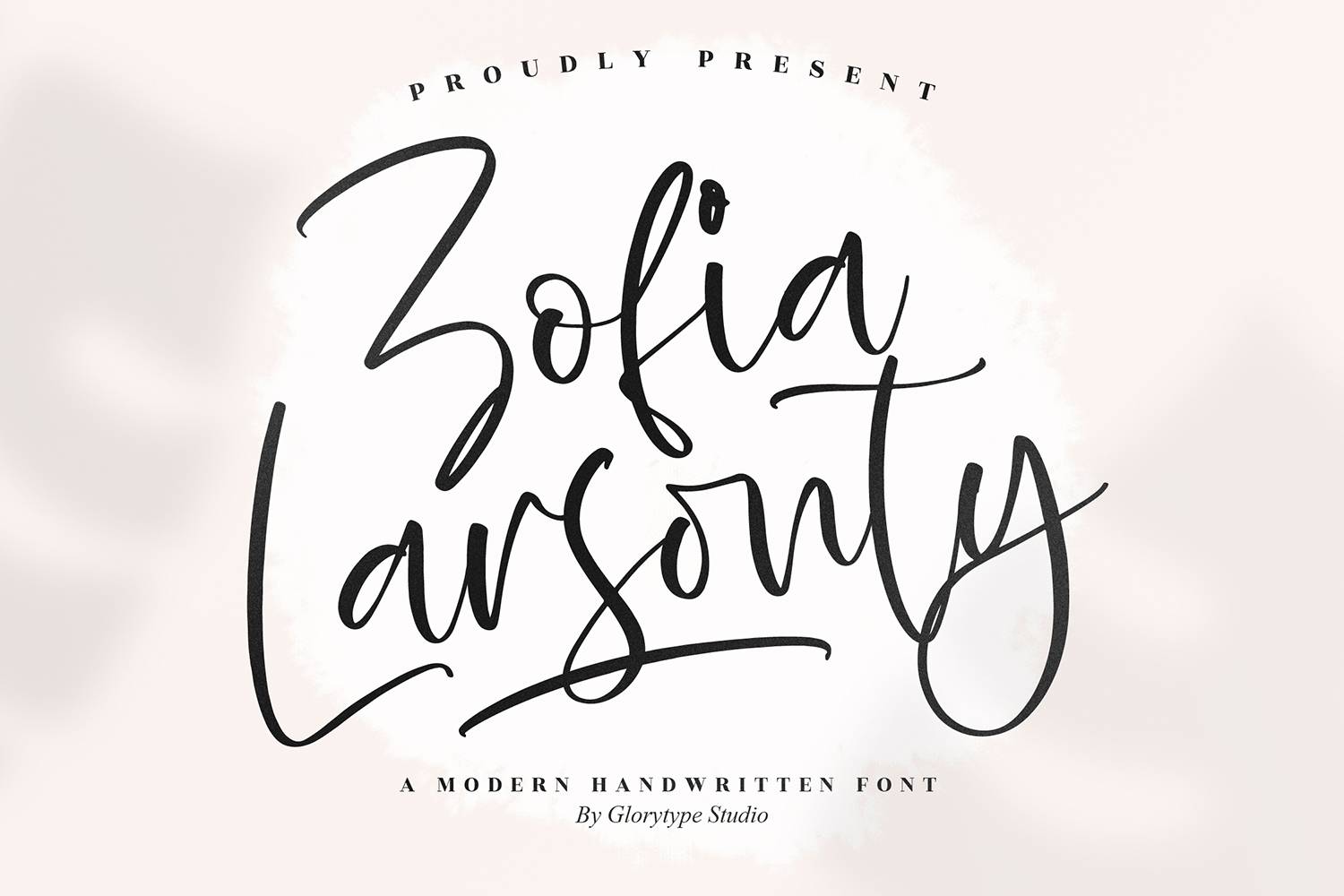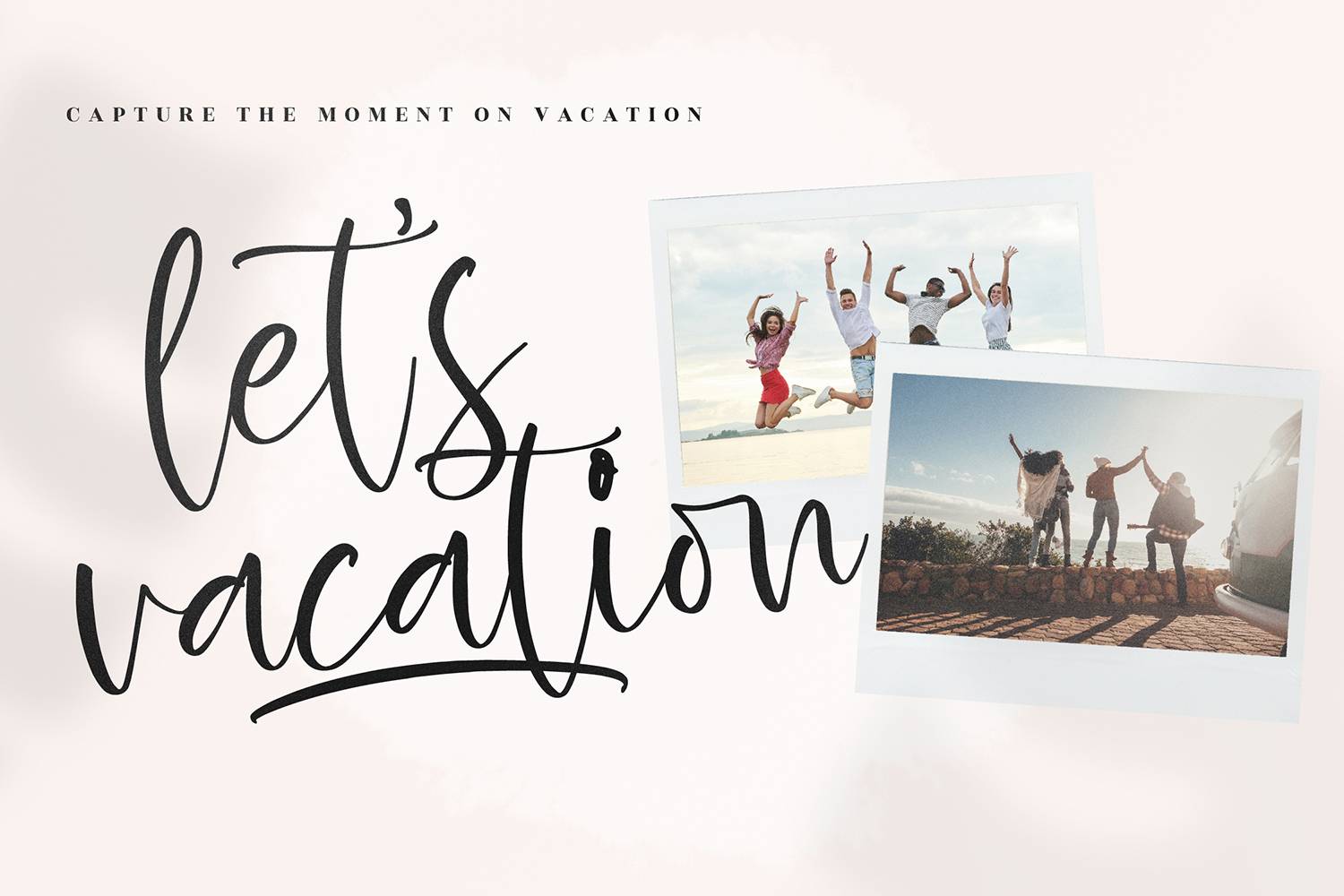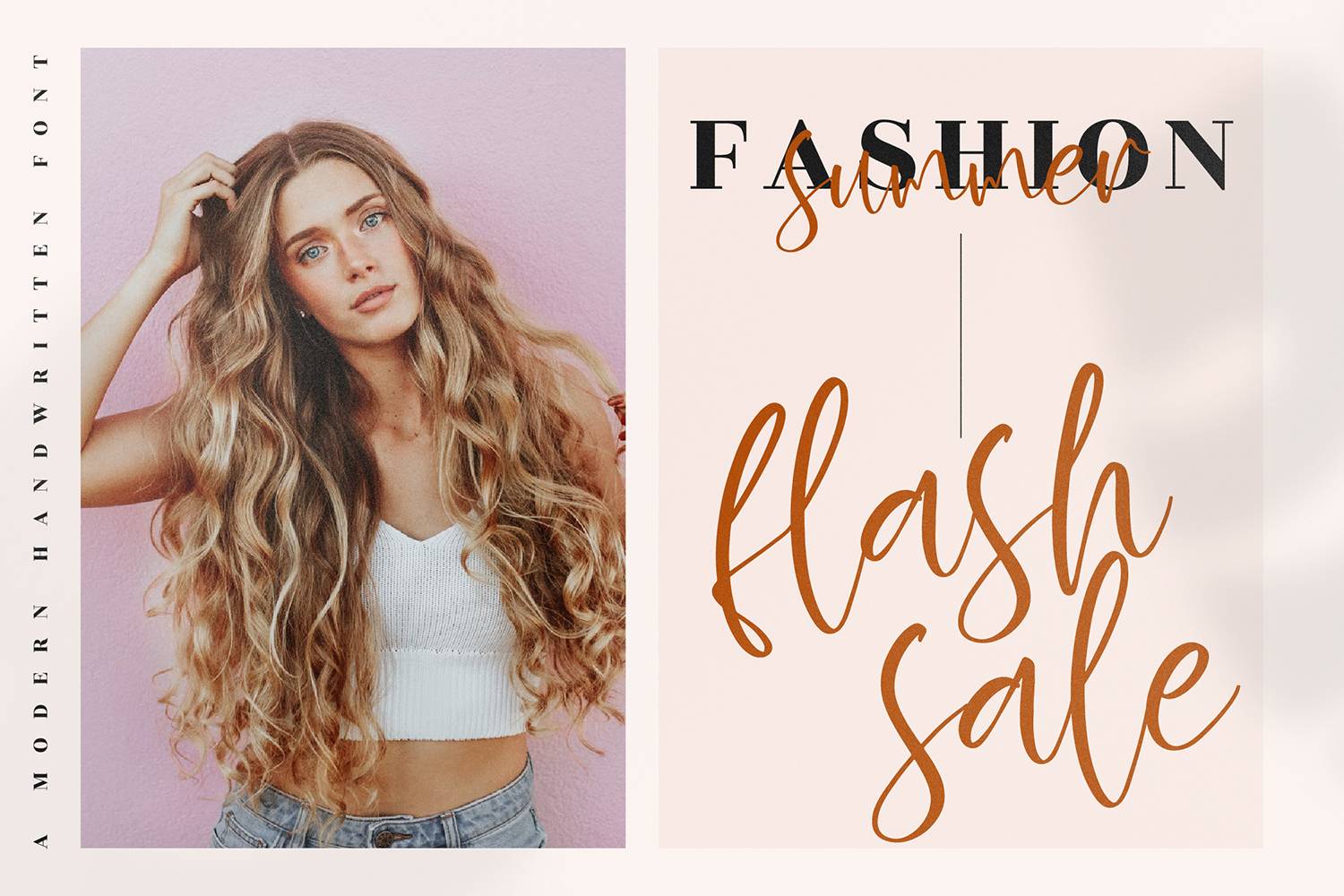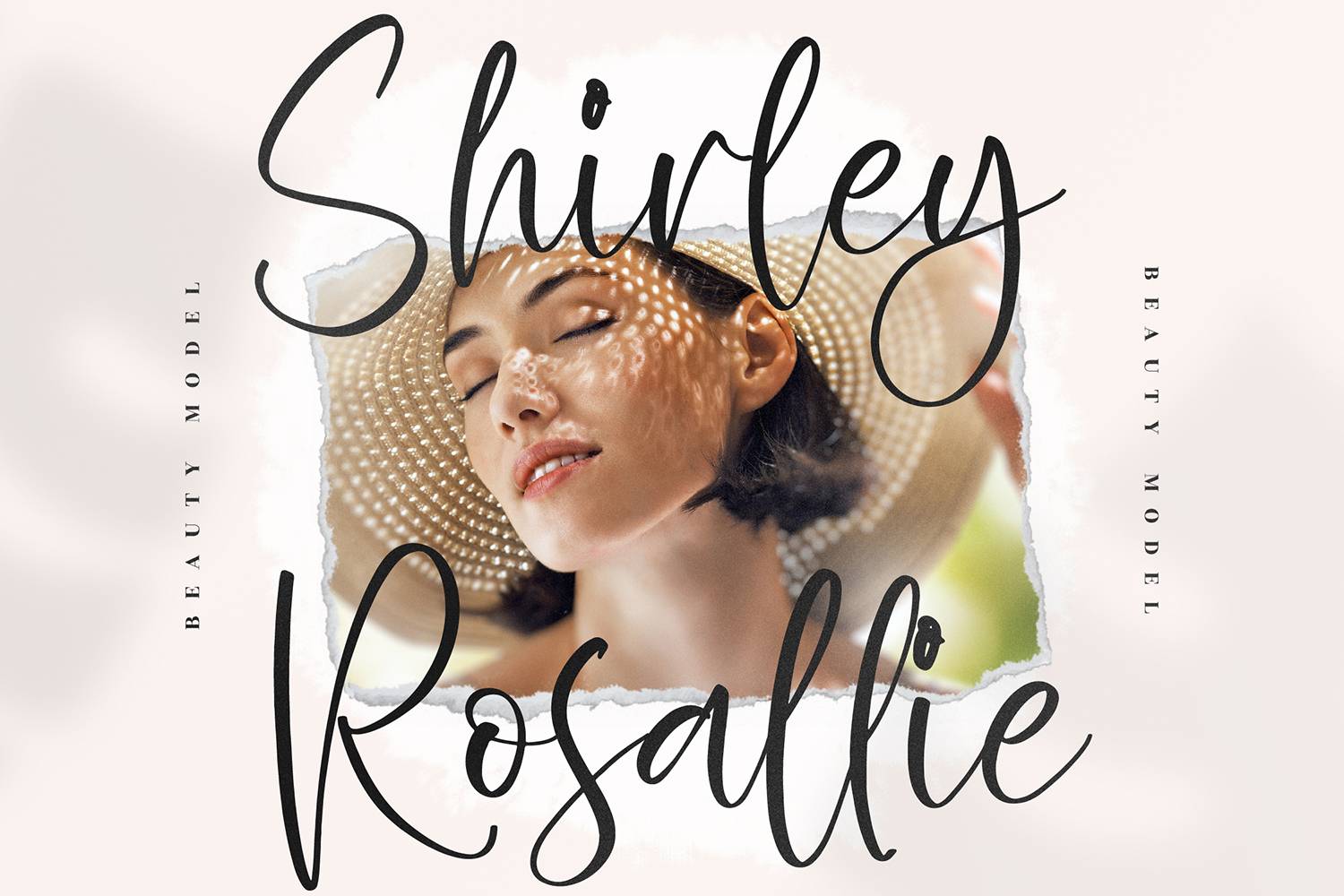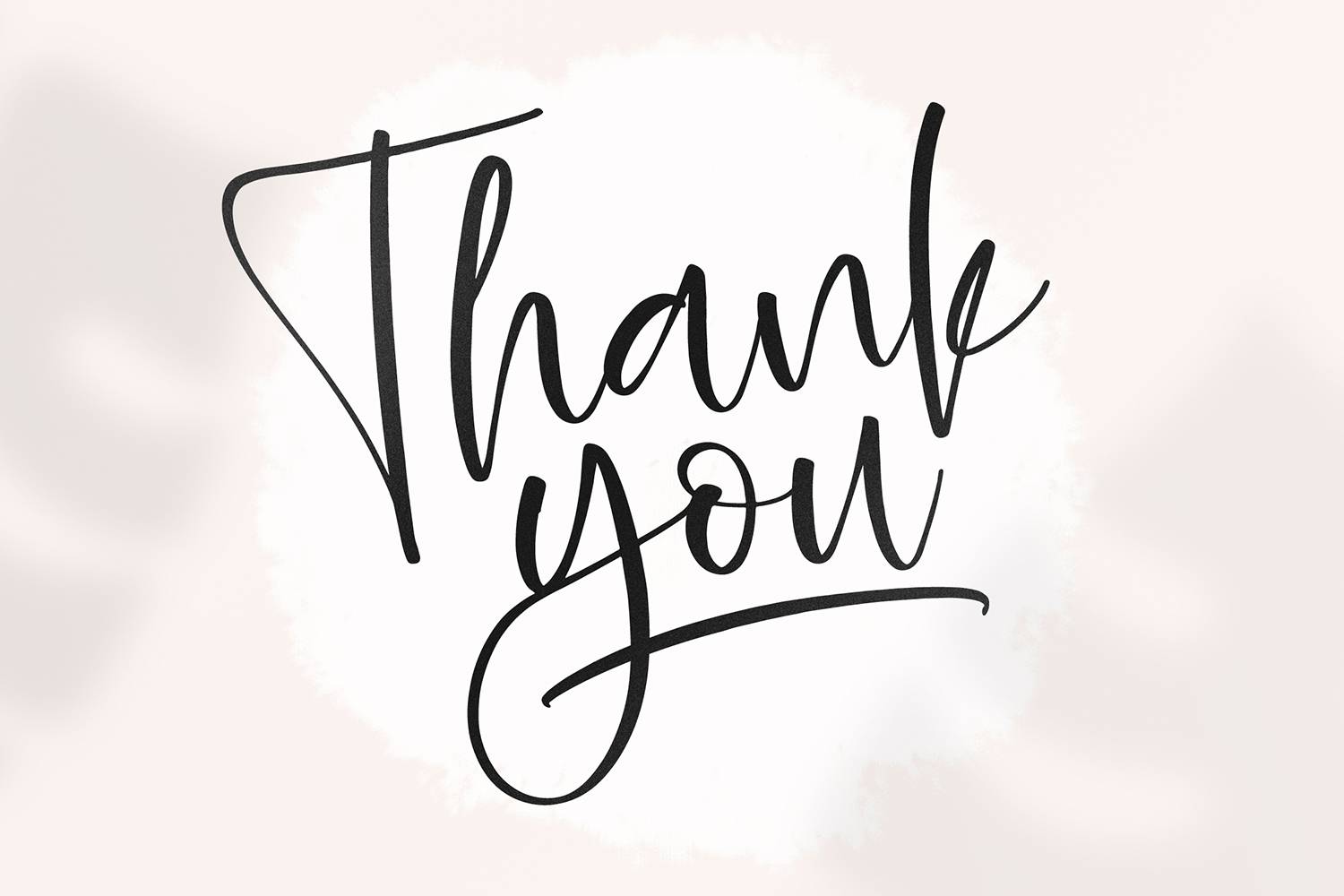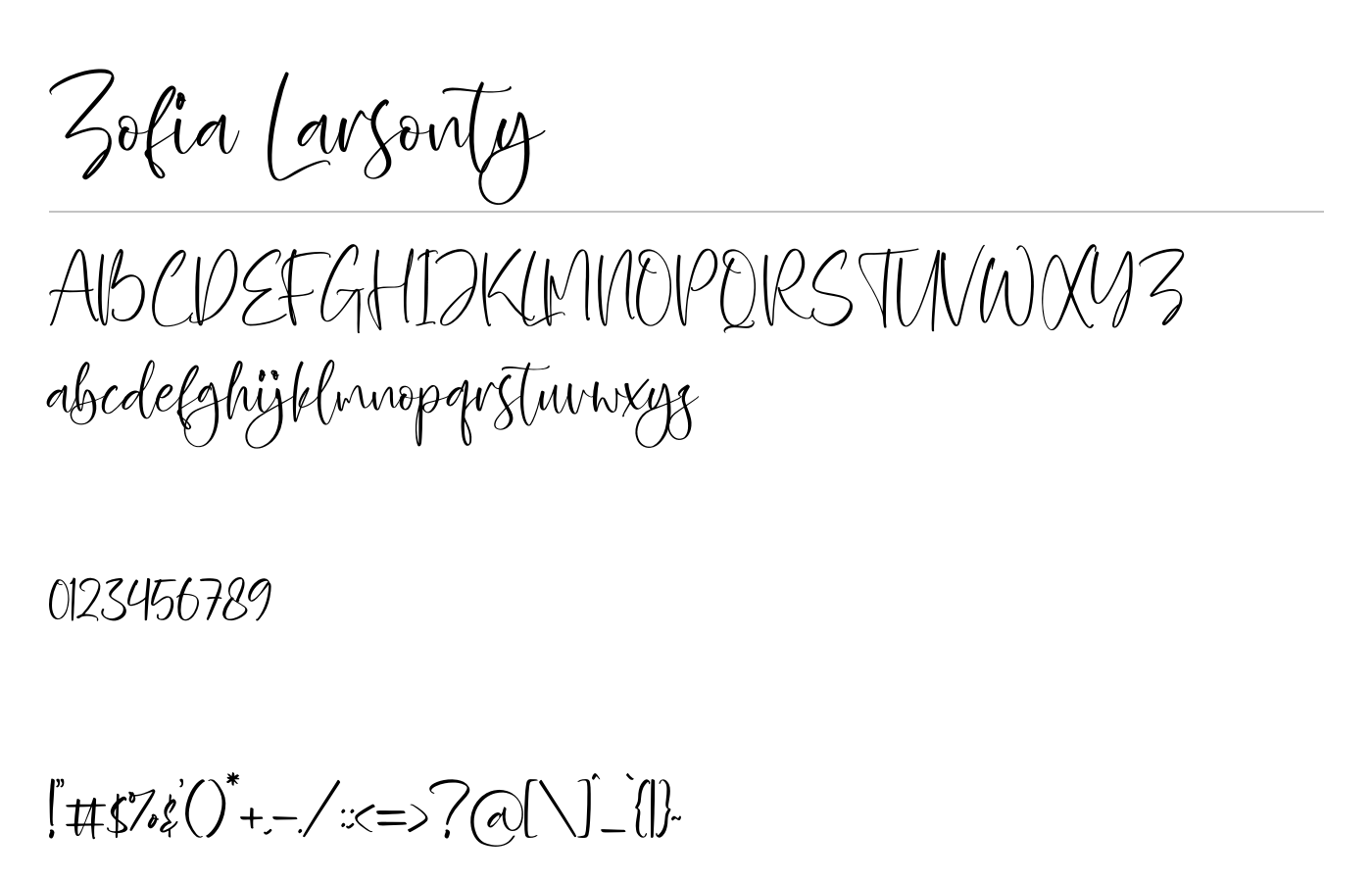
Zofia Larsonty is a delicate, handwritten script font that features slender, elegant strokes with a natural, flowing style. Its playful yet refined letterforms and airy spacing make it ideal for personal branding, invitations, and creative projects that seek a charming, sophisticated touch. This font works best in headlines or decorative text where a friendly, artistic feel is desired.
Zofia Larsonty Font
About Zofia Larsonty Font